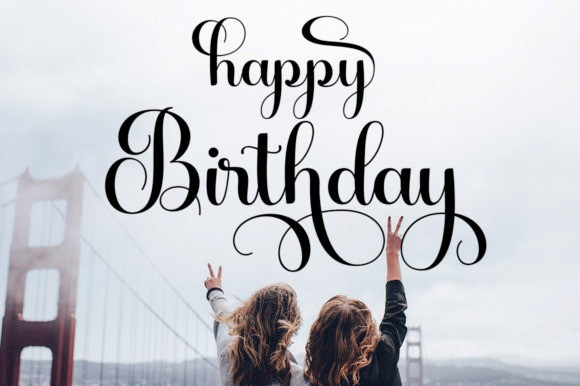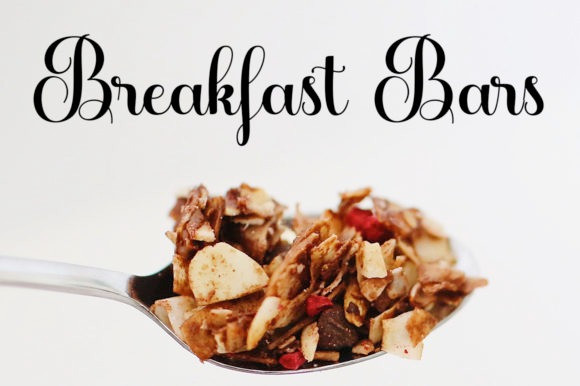
Amstajul Bafett Handwritten Font
Amstajul Bafett is a dainty and delicate script font. It’s the perfect choice for wedding invitations, stationery, photography, social media posts, product packaging, greeting cards, and much more! This font is PUA encoded which means you can access all of the glyphs and swashes with ease!